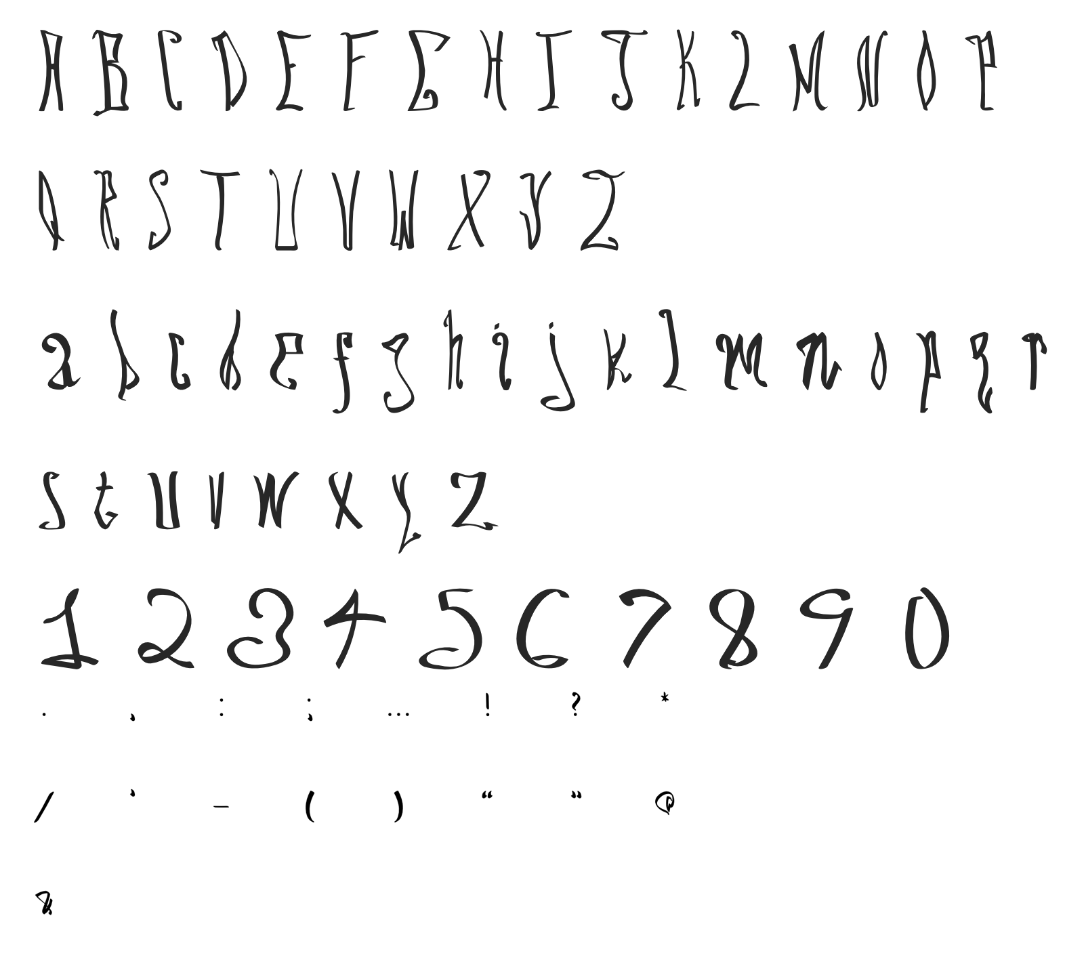
Graveyard is a font inspired by the location of Nunhead Cemetery and its gothic architecture. The withered and tattered graves alongside the overgrown and unkempt plants that surround death produce an unearthly and spectral sensation when walking along its path, and as you come face to face with your immortality you realize all paths must come to a close. The font was created to capture the decay of the cemetery throughout the years; the graves out of reach due to the vast aging of nature. Lineweight flows from thick to thin, and the sharpness captures that harsh truth of our inevitable end.